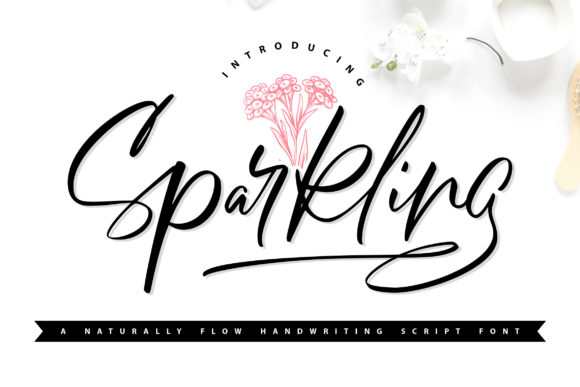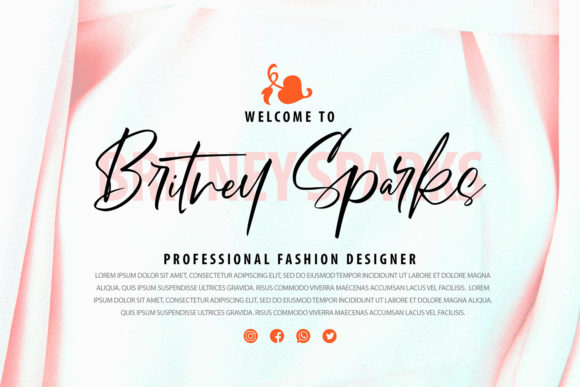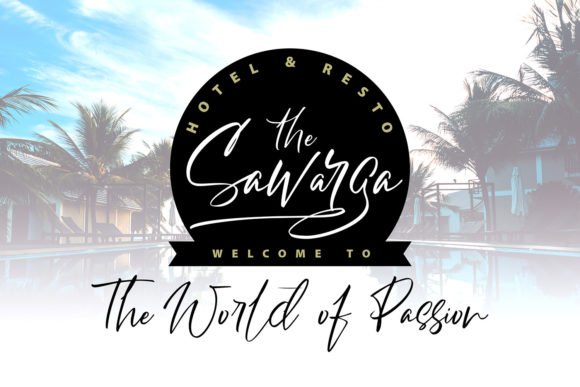
About Sparkling Font
Sparkling is a stunning and elegant script font that exudes sophistication and charm. With its smooth curves and graceful letterforms, this font adds a touch of glamour to any design. Whether you’re working on fashion branding, editorial layouts, or any other creative project, Sparkling is sure to make a statement.
The flowing lines and delicate strokes of Sparkling create a sense of elegance and refinement. Its clean and crisp letterforms are beautifully balanced, making it easy to read and pleasing to the eye. The font’s versatility allows it to be used in various contexts, from logos and branding to magazine layouts and social media graphics.
One of the standout features of Sparkling is its attention to detail. The font is carefully crafted with exquisite swashes and ligatures, adding an extra touch of flair and sophistication to your designs. These decorative elements can be easily accessed as the font is PUA encoded, giving you the freedom to customize and enhance your creations effortlessly.
Whether you’re designing for the fashion industry, creating editorial spreads, or simply want to add a touch of elegance to your projects, Sparkling is a font that will elevate your designs. Its ravishing and refined script style exudes confidence and style, making it an excellent choice for fashion branding or editorial designs.
Add Sparkling to your projects with ease and unlock a world of creative possibilities. Its smooth curves, stunning swashes, and elegant appeal will leave you with breathtaking results that are sure to captivate your audience.